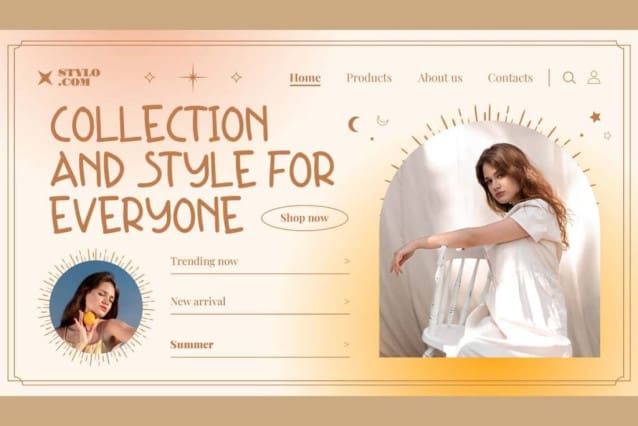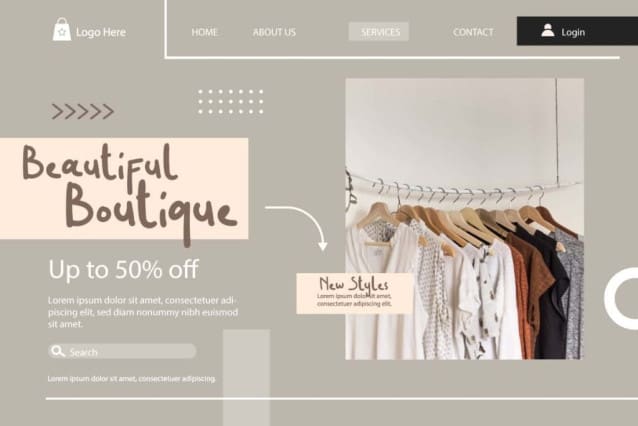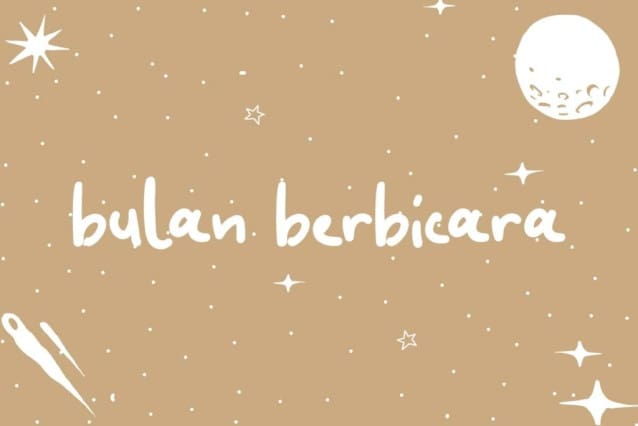
Bulan Berbicara Font
Bulan Berbicara Font is a cute, playful and friendly handwritten font that appeals personal sense to any of your projects. This will be beautiful children’s handwriting font with playful characters. Perfect for all your creative creations, such as apps, blogs, brochure, covers, greeting cards, headers, headline, invitation, labels, logos, mockup, quotes, stationery, stickers, text art on background, title, watermark, website, etc.
Bulan Berbicara Font includes a complete set of Basic Uppercase and Lowercase Characters, Numbers, Punctuation and Symbols. It is made perfectly and with minimal errors so this font works well at large and small sizes. It will suit all business sectors including apparel, boutique, event organizer, fashion, florist, graphic design, photography, and much more.